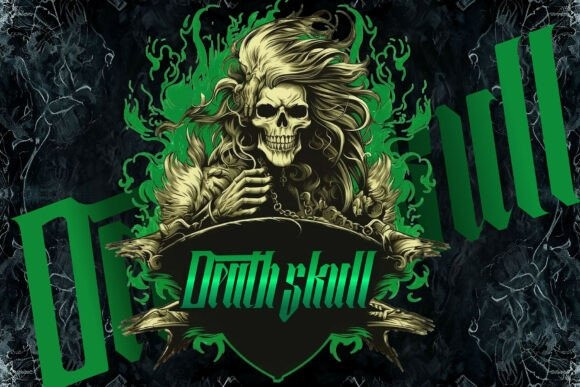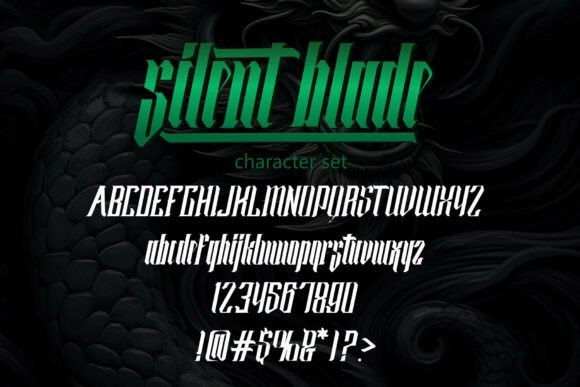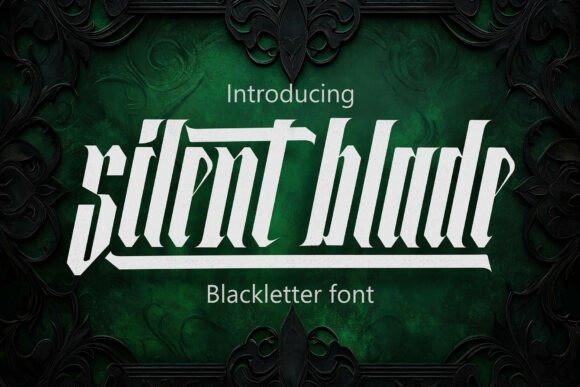
Silent Blade Font
Silent Blade Font a contemporary blackletter typeface steeped in medieval traditions yet carved with a bold, modern vibe. It traces its roots back to classic gothic scripts, reconceptualized for the digital era, producing a prominent visual aura, befitting of branding, apparel, editorial designs, and poster art.
Each glyph in Silent Blade has been crafted meticulously, resulting in tall, angular, and assertive characters. The vertical lines are reminiscent of slashes from a blade, subtly flared and dynamic, bestowing each letter with fluidity and finesse. This unique blend of methodical structure and assertive undertone transforms Silent Blade into a standout among blackletter display fonts, echoing dark sophistication interwoven with audacious creativity.
This is particularly useful for initiatives that require an amalgamation of polished class and adventurous spirit. The contemporary detailing combined with digital precision ensures optimal impact, both on print and digital platforms. Silent Blade comes with a comprehensive character set including Uppercase, Numbers, and Punctuation, alongside Multilingual Support and Stylistic Alternates for artistic exploration and distinct embellishments.
Whether you’re aiming to capture traditional gothic essence or veer towards a stylized, innovative direction, Silent Blade’s alternates provide compositional flexibility. Ideal applications range from heavy metal and gothic branding, album art, tattoos, medieval-themed events, merchandise, fantasy literature and game titles, to high-contrast editorial designs.
Silent Blade is not one to blend into the background – it stands proud and commands notice. Its gothic forms are tailored for modern workflows, ensuring a smooth admixture with your brand aesthetics or layout system. It is primed for ventures that demand ruggedness, lineage, and sophistication in one font package. Beating conventional blackletters, Silent Blade offers crystal clear readability while maintaining its edgy persona, making it a preferred choice for designers as they find it timeless, pertinent, and the perfect canvas where tradition collides with rebellious flair.
In essence, Silent Blade personifies the core of blackletter design while pioneering its way into modern typography – sharp, organized, and perpetually expressive.